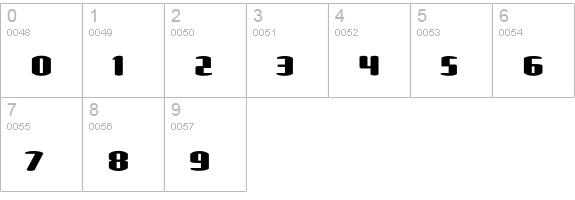
Shimano-RoundBlackNarrow is a stunning font that effortlessly combines elegance and modernity. Its sleek and rounded letterforms make it perfect for a variety of design projects, from branding and logo design to packaging and web design. What sets Shimano-RoundBlackNarrow apart is its versatility. Whether you are looking to create a sophisticated and refined look or a bold and impactful design, this font has got you covered. Its thick and bold strokes command attention, while its rounded edges add a touch of softness and approachability. But what truly sets Shimano-RoundBlackNarrow apart is the fact that it is freely available to download at FontsMarket.com. Yes, that's right, you can elevate your designs and make a lasting impression without spending a dime. This font offers you the opportunity to create stunning visuals without any financial barriers, making it an ideal choice for both personal and commercial projects. So why wait? Head over to FontsMarket.com now and unleash your creativity with Shimano-RoundBlackNarrow. Download this incredible font today and take your designs to the next level. Whether you are a professional designer or a passionate hobbyist, Shimano-RoundBlackNarrow is a must-have font that will undoubtedly leave a lasting impression.